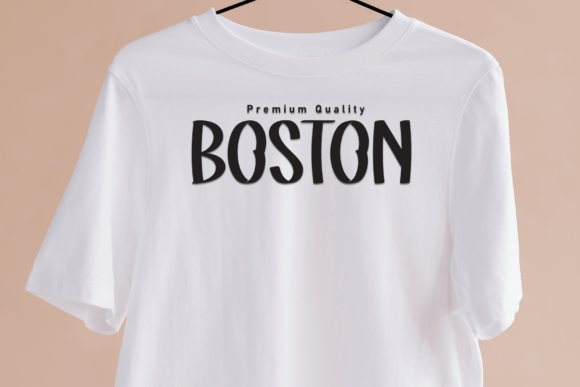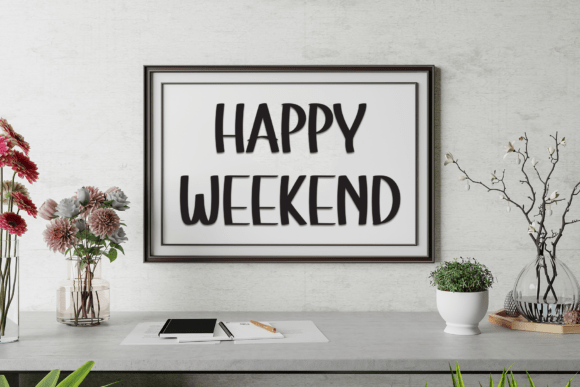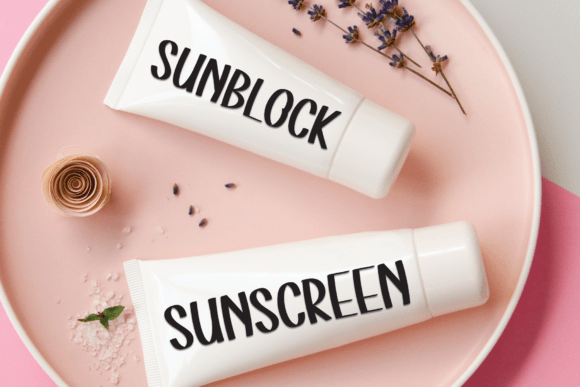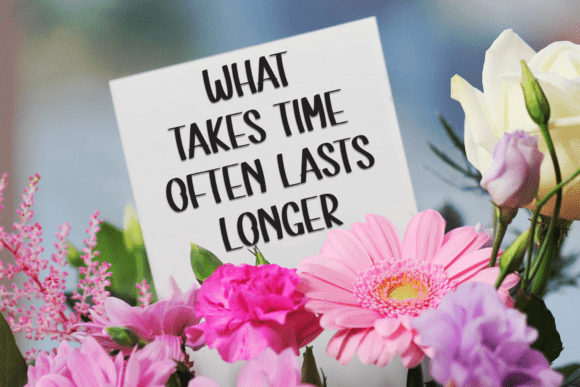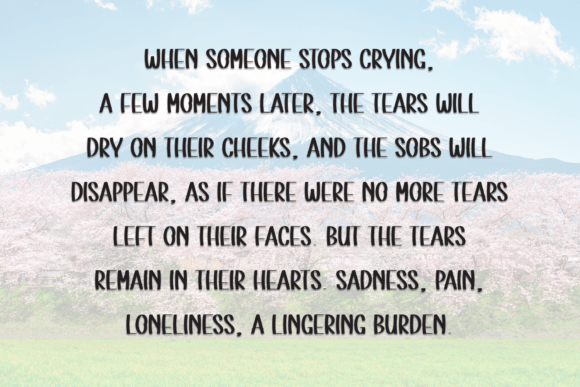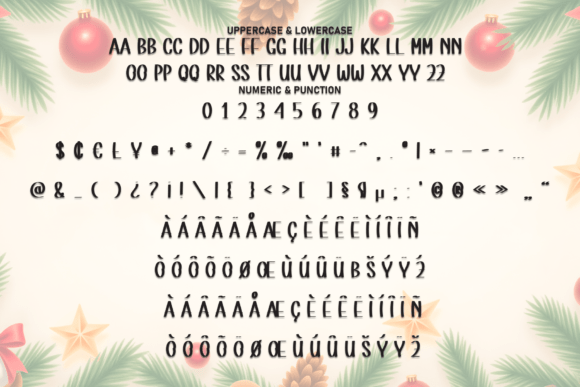
Unwrap the Magic of Amazing Christmas Font
As you sit amidst twinkling lights and festive decorations, the spirit of Christmas fills the air. It’s the time of year when creativity knows no bounds, and the possibilities are endless. You’re browsing through design ideas, searching for the perfect font to make your wedding invitations, greeting cards, or social media posts truly special. And then, you stumble upon it – a captivating fusion of warmth and charm that will elevate your designs to new heights.
This is where the Amazing Christmas Font comes in – a handwritten display font that exudes charm in every stroke. Its unique blend of elegance and playfulness makes it the ultimate go-to for designers looking to add a touch of magic to their creations. Whether you’re crafting heartfelt cards or infusing a pulse into your design aspirations, this font is sure to uplift your text and transform it from ordinary to extraordinary.
- Font Size: 1000 glyphs, including 100 ornaments and 50 holiday icons
- Unique Characteristics: Hand-drawn illustrations, intricate details, and ornaments for a festive look
- Font Style: Script, Calligraphy, and Display fonts for various design applications
Designer Review: Amazing Christmas Font
As a designer, I’ve had the chance to work with the “Amazing Christmas Font” and I must say, it’s a mixed bag. Here’s my honest review.
- The font is undeniably festive and perfect for Christmas-themed projects.
- The bold and playful style is sure to grab attention and add a touch of holiday cheer to any design.
- The font is relatively easy to customize and can be used for a variety of applications, from print to digital media.
- The font may be too bold and overwhelming for some designs, so use it sparingly.
- The character set is limited, which may cause issues for more complex projects.
- The font may not be as versatile as some other Christmas fonts on the market.
Overall, I’d give the “Amazing Christmas Font” 3.5 out of 5 stars. It’s a great choice for simple, eye-catching designs, but may not be the best fit for more complex projects or those requiring a lot of customization.
For a festive look, pair the Amazing Christmas Font with holiday-themed graphics and colors.
For a cohesive look, use the Amazing Christmas Font consistently throughout your design.
For a polished look, use the Amazing Christmas Font in combination with other festive fonts and graphics.
The Amazing Christmas Font is perfect for:
- Christmas card designs
- Holiday party invitations
- Seasonal social media posts
- Winter-themed website headers
Remember to have fun and get creative with the Amazing Christmas Font!